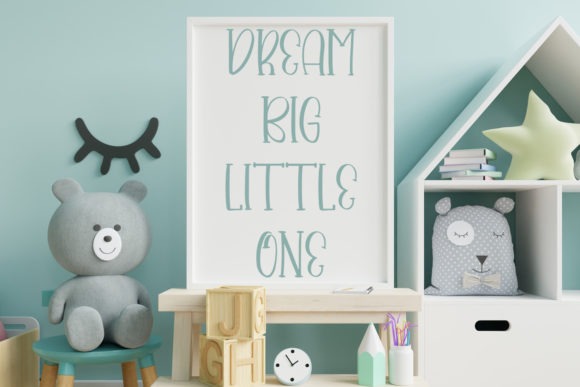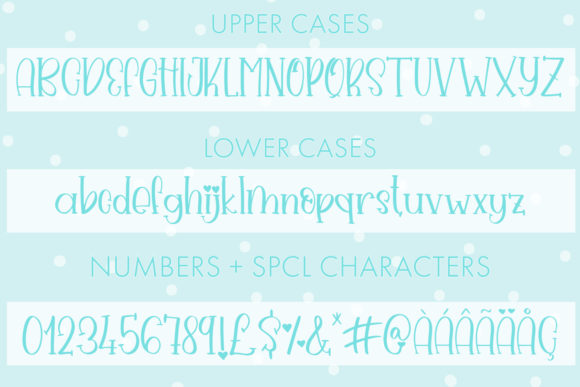
Tommie Bear Font
db-ku.com - Script & Handwritten -- Tommie Bear is a sweet and friendly handwritten font. It is perfect for children themed designs, especially when combined with bright colors.